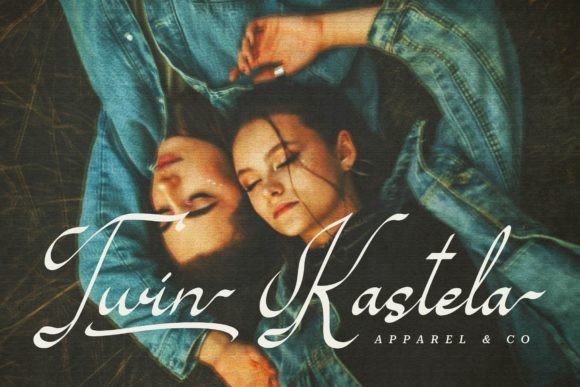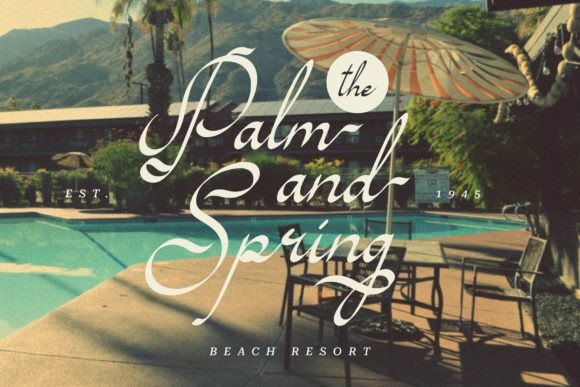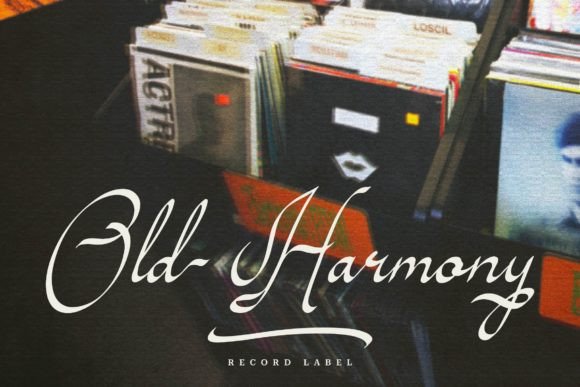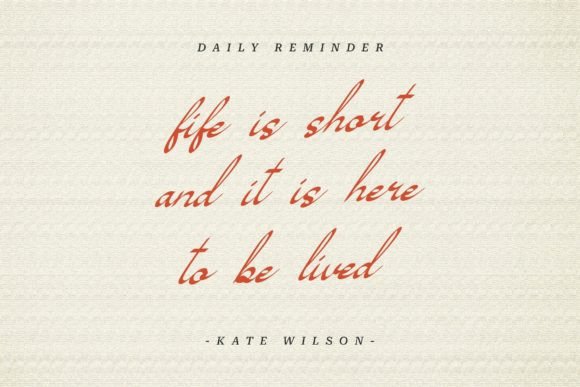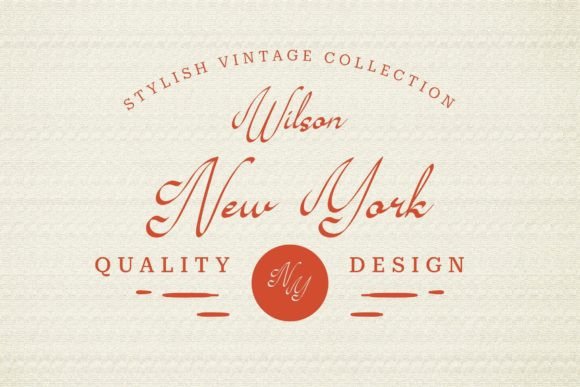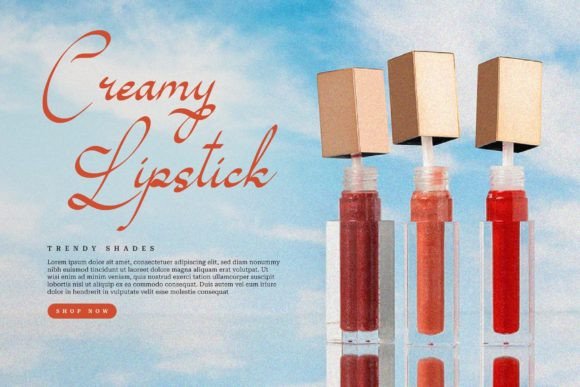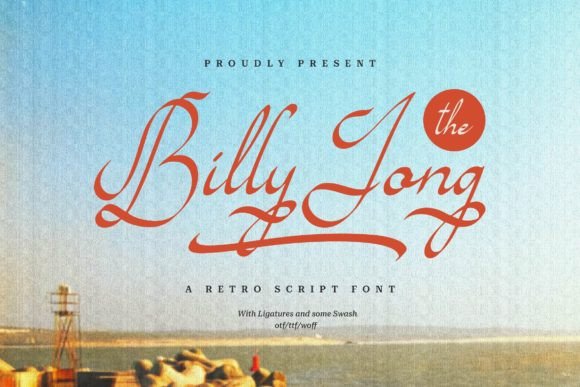
Billy Jong Font: A Stylish Retro Script Font for Your Creative Projects
Billy Jong is a stylish retro script font that has a playful, cursive look. Its smooth, flowing letters give a fun and nostalgic vibe, making it great for designs that need a touch of charm and personality. In this article, we’ll explore the features and benefits of Billy Jong Font, and how you can use it to elevate your designs.
What is Billy Jong Font?
Billy Jong Font is a modern script font that draws inspiration from classic retro typography. Its unique blend of smooth lines, flowing curves, and playful flair makes it perfect for a wide range of design applications, from branding and advertising to crafting and DIY projects.
Key Features of Billy Jong Font
- Playful and Cursive Look: Billy Jong Font has a distinctive cursive look that’s perfect for adding a touch of whimsy and fun to your designs.
- Smooth and Flowing Letters: The font features smooth, flowing letters that give it a nostalgic and charming feel.
- Retro Style: Billy Jong Font is inspired by classic retro typography, making it perfect for designs that need a vintage or nostalgic touch.
- Highly Versatile: The font is highly versatile and can be used for a wide range of design applications, from headings and titles to body text and quotes.
Benefits of Using Billy Jong Font
So why should you choose Billy Jong Font for your next design project? Here are just a few benefits of using this stylish retro script font:
- Adds a Touch of Personality: Billy Jong Font adds a touch of personality and charm to your designs, making them stand out from the crowd.
- Evokes a Sense of Nostalgia: The font’s retro style evokes a sense of nostalgia and familiarity, making it perfect for designs that need a vintage or classic feel.
- Easy to Read: Despite its playful and cursive look, Billy Jong Font is easy to read and understand, making it perfect for body text and quotes.
In conclusion, Billy Jong Font is a stylish retro script font that’s perfect for designers and crafters looking to add a touch of personality and charm to their designs. With its smooth, flowing letters and playful, cursive look, it’s great for a wide range of design applications, from branding and advertising to crafting and DIY projects. Whether you’re looking to evoke a sense of nostalgia or simply want to add a touch of whimsy to your designs, Billy Jong Font is a great choice.